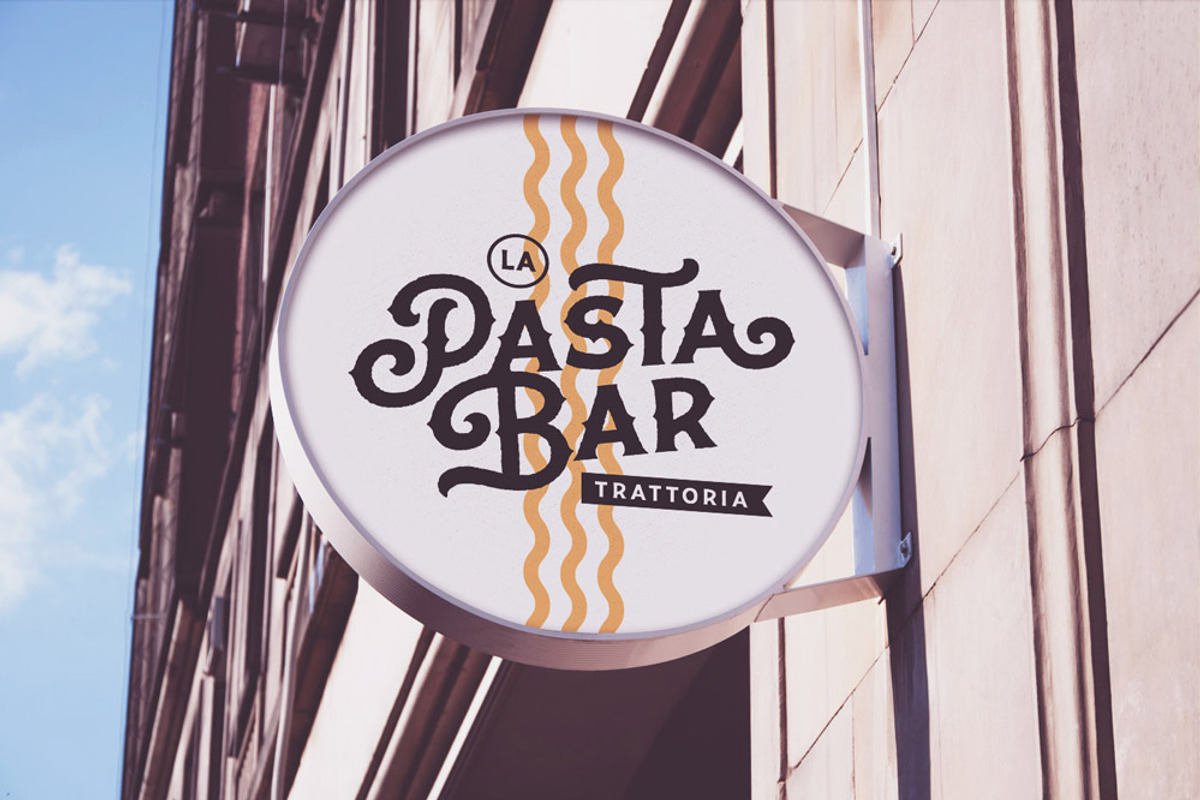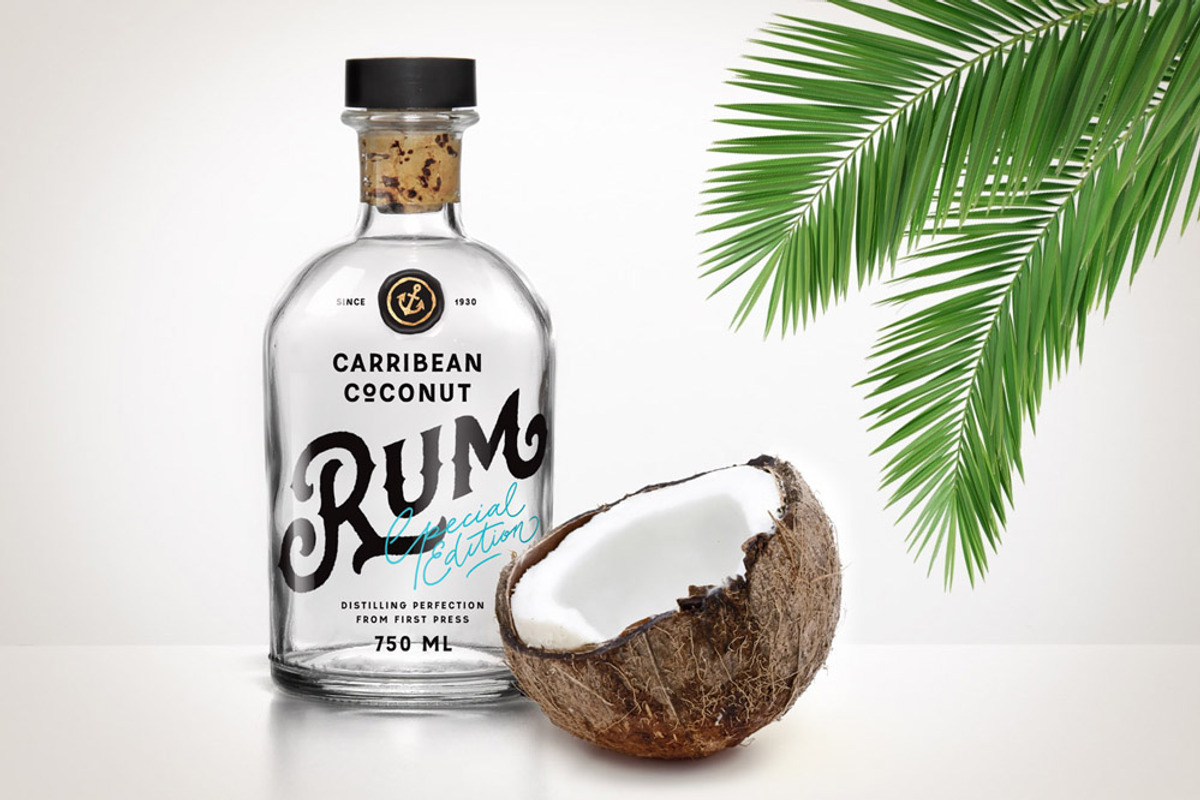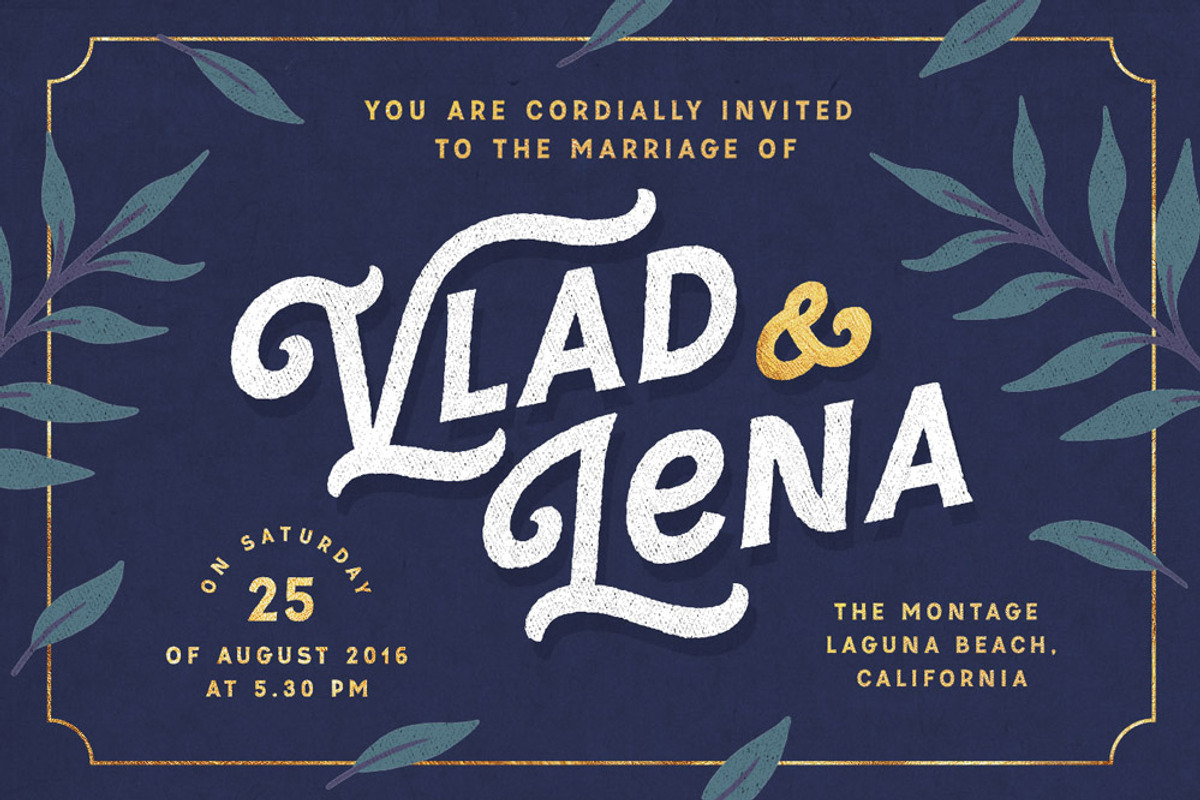
Heartland Font
Heartland Font by Andrey Sharonov is a font selected for branding, posters, packaging, typography.
- It is perfect for creating logos, t-shirt lettering, package, invitations and any key text in design.
- Heartland can be used like typesetting (lowercase letters) and like decorative font (uppercase letters and different stylistic alternates of
Why Heartland Font is worth a look
Heartland Font by Andrey Sharonov fits naturally into Branding, posters, packaging, typography.